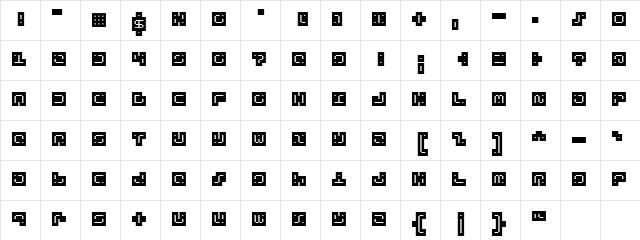
D3 FuturismOutlineRound Regular Free Font
D3 FuturismOutlineRound Regular
Design Context for D3 FuturismOutlineRound
D3 FuturismOutlineRound has a distinctly futuristic character, with geometric precision and clean angles that feel at home in technology, gaming, and sci-fi contexts.
Pro Tip: Try D3 FuturismOutlineRound with generous letter-spacing in UI labels and navigation - the geometric forms benefit from room to breathe.